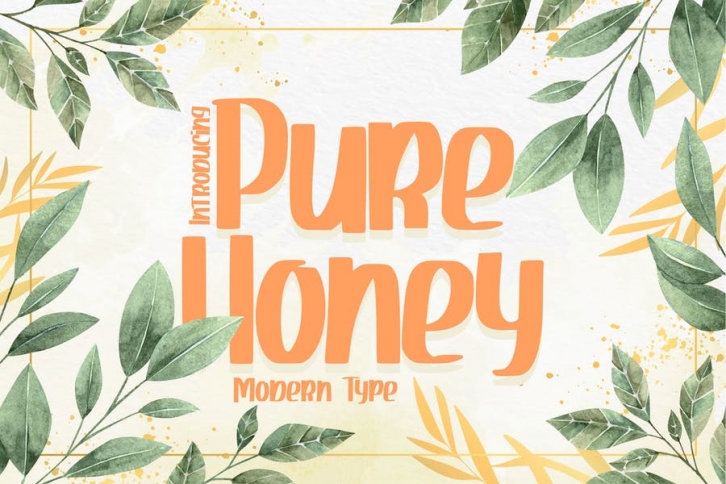
Pure Honey | Modern Type Font Download
Pure Honey | Modern Type with a calligraphy style, So beautiful on invitation like greeting cards, branding materials, business cards, quotes, posters, and more!
• Tons of glyphs
• Alternates and Ligatures
• Punctional
• Fonts include Multilingual Support